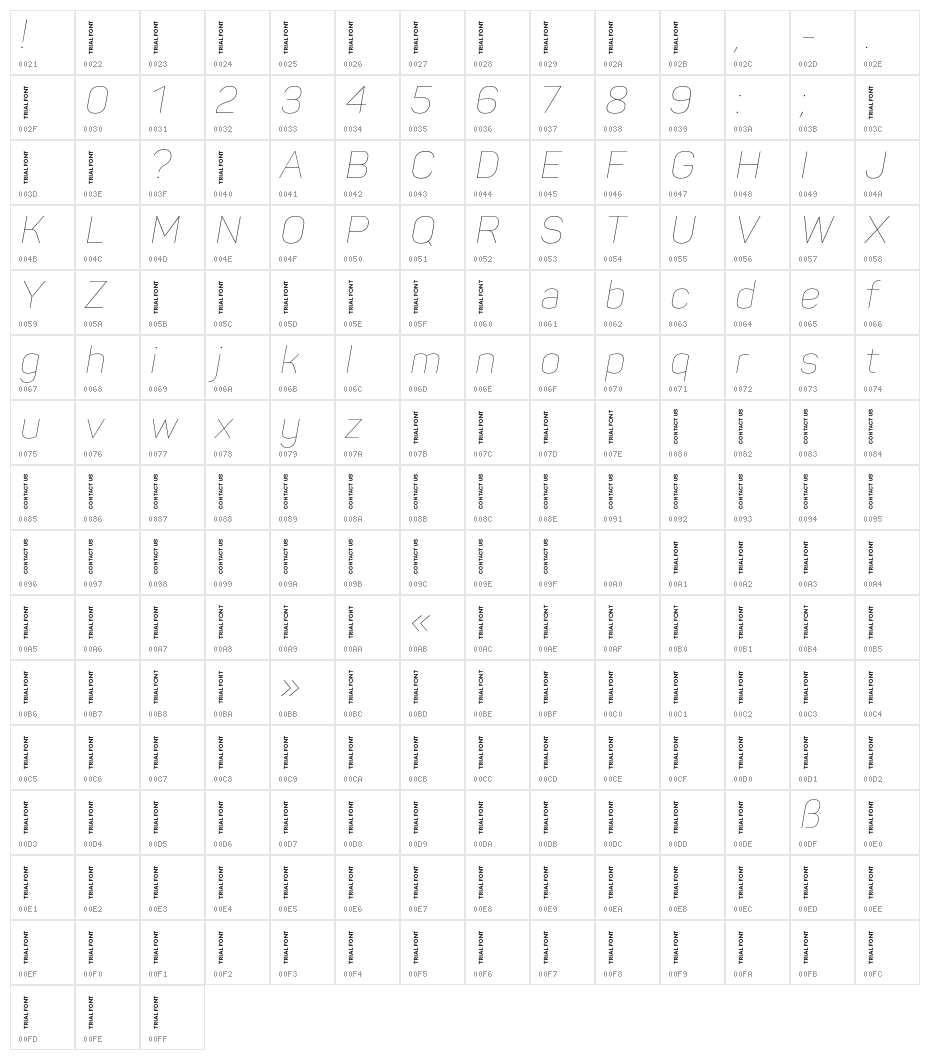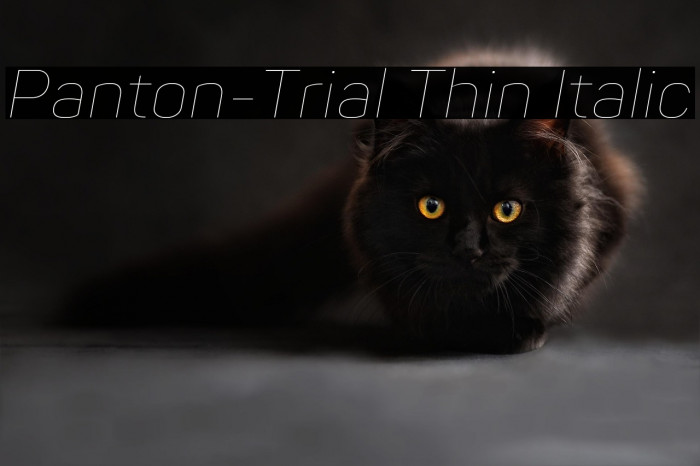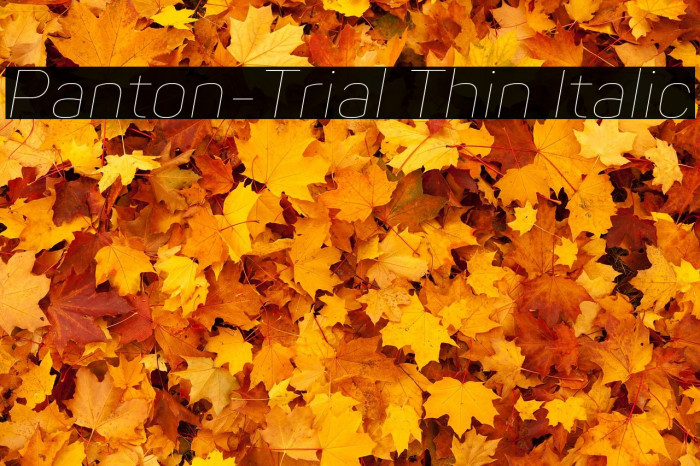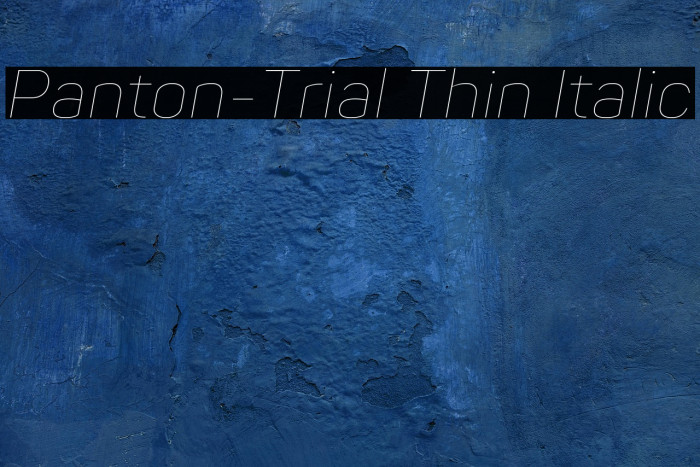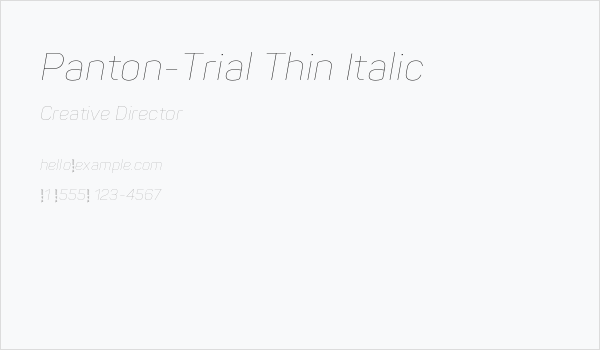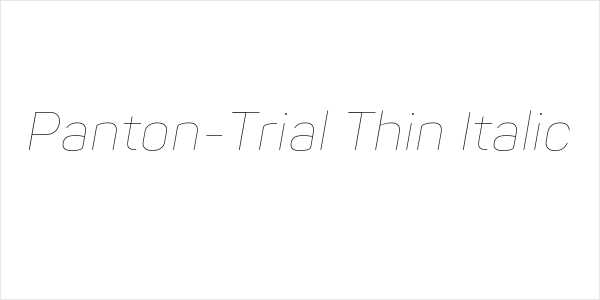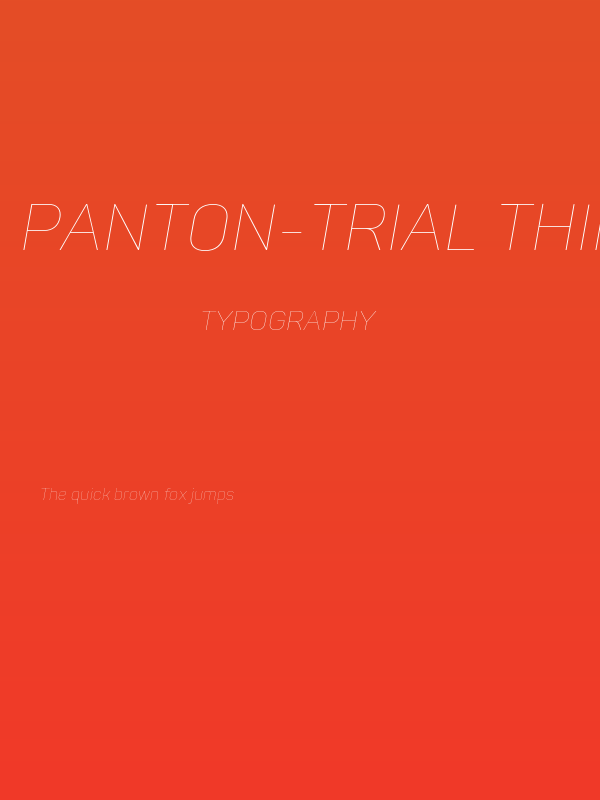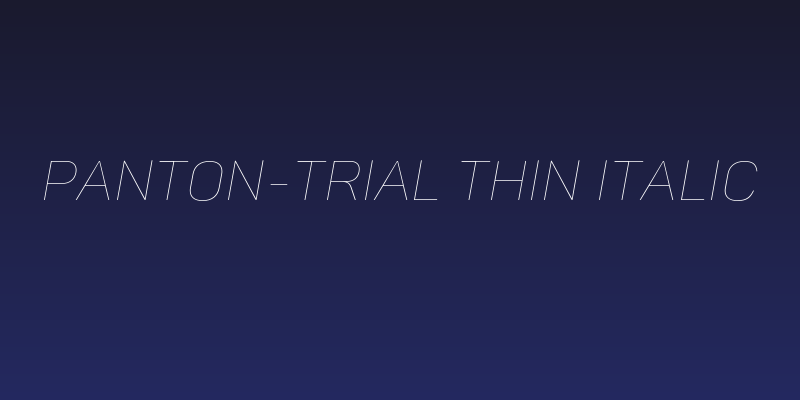
Panton-Trial Thin Italic Font
Panton-Trial Thin Italic Description
This font features a sleek and modern design with thin, elegant strokes that give it a refined and sophisticated appearance. The italic style adds a dynamic and fluid touch, making it suitable for contemporary and stylish applications. The characters are well-proportioned with a slight slant, enhancing readability while maintaining a unique aesthetic. The numerals and special characters are consistent with the overall design, ensuring a cohesive look across all text elements. Its minimalistic approach makes it versatile for various design projects.